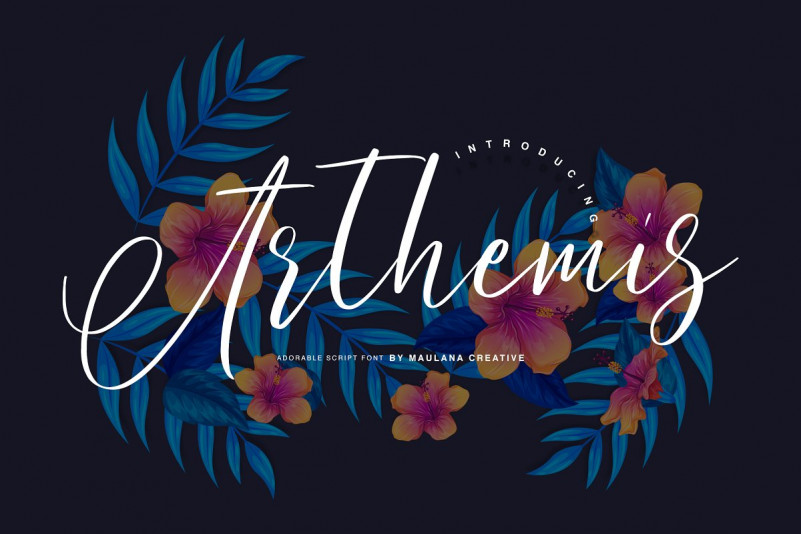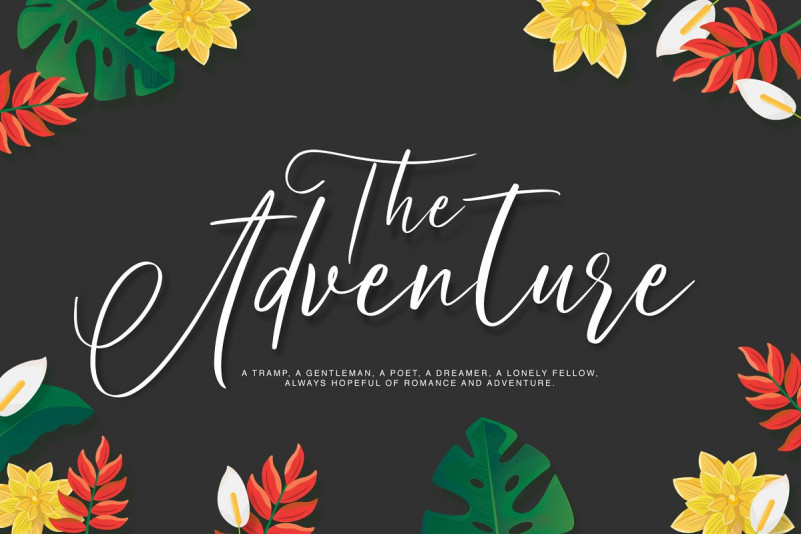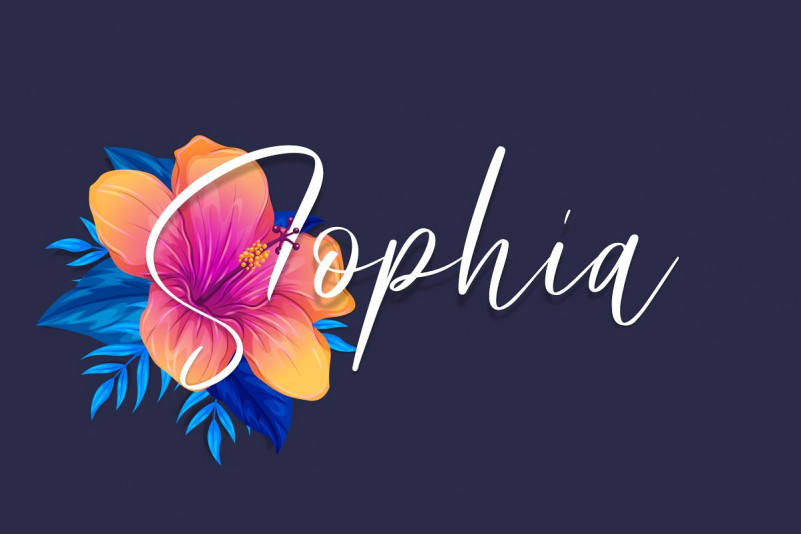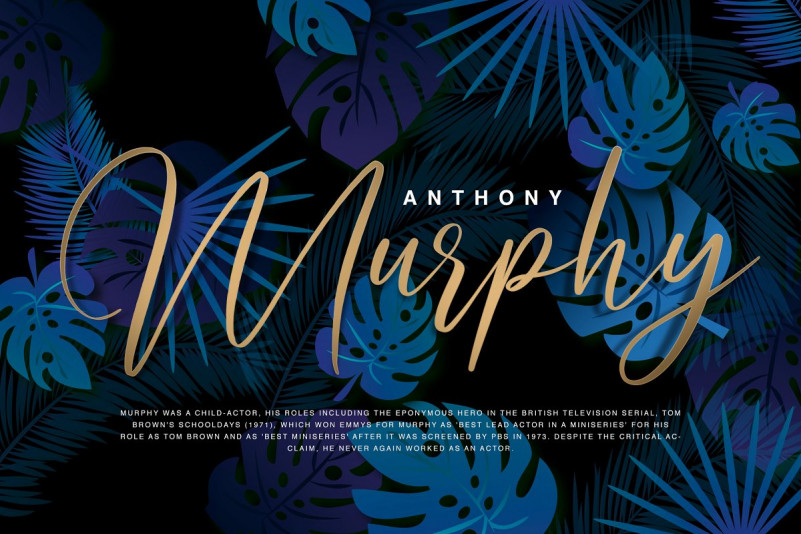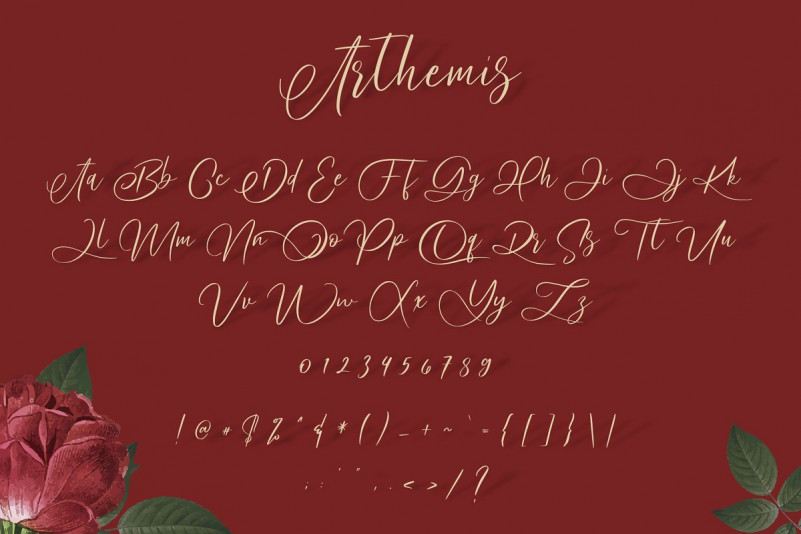
Arthemis Script Font
This is a stylish modern calligraphy font with casual chic flair. It is perfect for branding, wedding invites and cards, and maybe for red wine label! Proudly presents latest product Amorisa Font! It is designed and shared by Maulana Creative. Give your designs an authentic handcrafted feel. “Arthemis Script” is perfectly suited to signature, stationery, logo, typography quotes, magazine or book cover, website header, clothing, branding, packaging design and more.